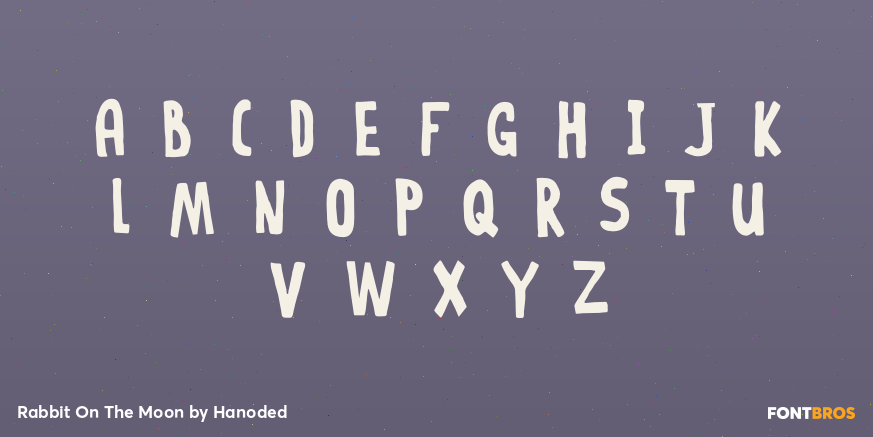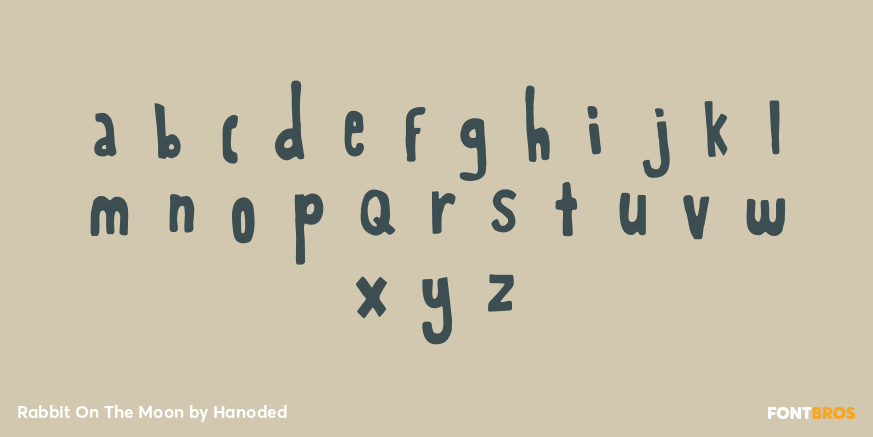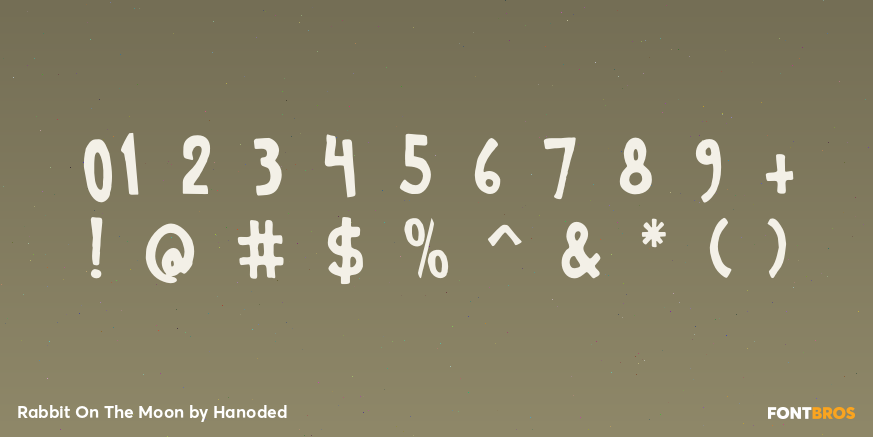
Rabbit On The Moon
This font is ideal for cartoons, greeting cards and children's books, as it has a happy 'feel' to it.
Rabbit On The Moon by Hanoded